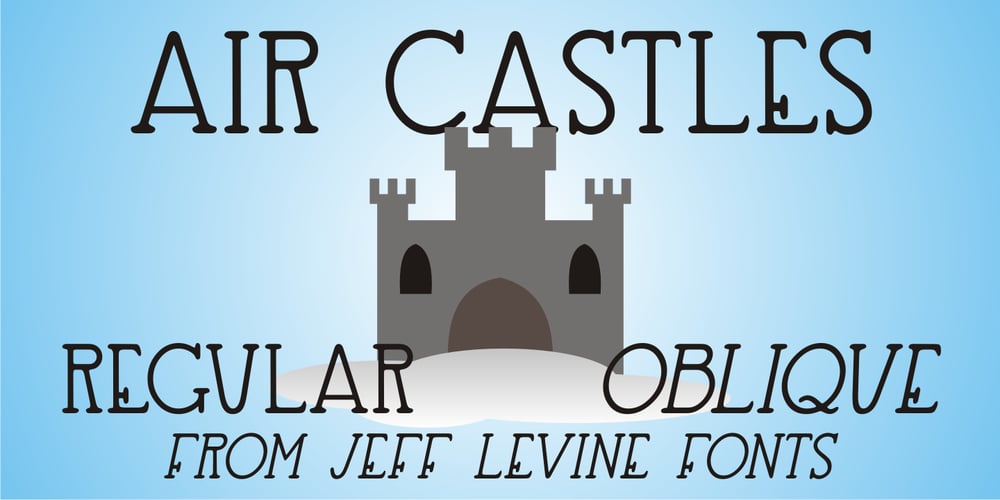
Air Castles JNL Font Family was designed by Jeff Levine and published by Jeff Levine. Air Castles JNL contains 2 styles and family package options. The cover of the 1919 sheet music for “While Others are Building Castles in the Air I’ll Build A Cottage for Two” had its title hand lettered in a wonderfully eccentric Art Nouveau serif design that typified the era. Also typical of the time was the habit of various songwriters to come up with wordy titles. This particular one checks in at fourteen words. Nonetheless, the sheet music’s title inspired Air Castles JNL and its oblique counterpart.